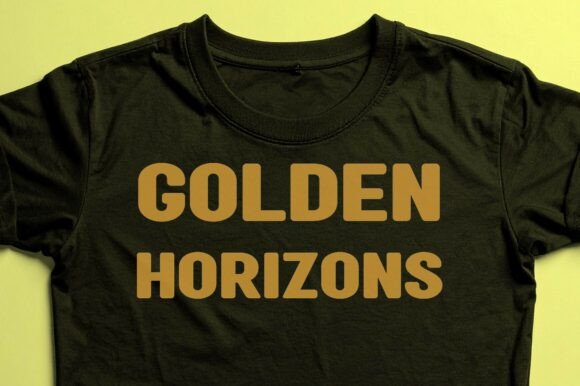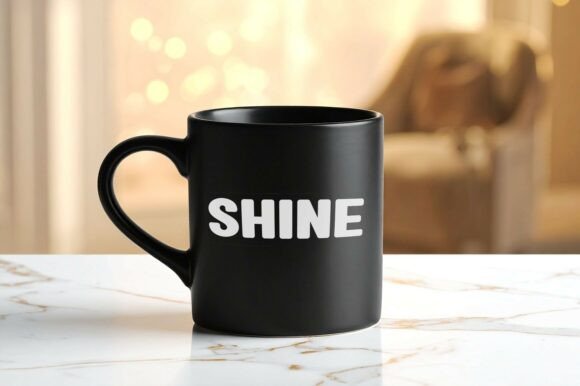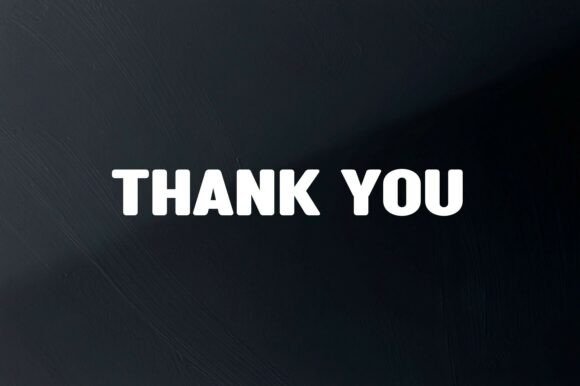
Introducing Akhir Tahun Font: Elevate Your Designs with Timeless Elegance
As the year comes to a close, designers and crafters are on the lookout for fresh and inspiring typography to elevate their creations. Look no further than the Akhir Tahun font, a sublime fusion of timeless elegance and contemporary flair. This exquisite font is the perfect match for grand celebrations, premium branding, and any design project that demands refinement and sophistication.
The Epitome of Refinement
Akhir Tahun embodies the perfect blend of classic poise and modern style, making it an ideal choice for designers seeking to create stunning visual experiences. Its well-proportioned letterforms are seamlessly aligned with sleek lines, exuding an aura of exclusivity and prestige. Whether you’re designing event invitations, festive greetings, luxury product presentations, or editorial content, Akhir Tahun is the go-to font for adding a touch of elegance and timeless allure.
Adaptability at Its Finest
One of the standout features of Akhir Tahun is its impressive adaptability. This font shines in a variety of applications, from soul-stirring event invites to cheerful festive greetings, luxury product presentations, and editorial design. Its exceptional readability ensures that your message is conveyed with clarity and precision, while its striking, meticulously crafted finishing touch adds a level of sophistication that’s hard to match.
Unparalleled Elegance and Distinctiveness
With Akhir Tahun, you can expect your words to echo with an unparalleled elegance and distinctiveness. This font is designed to make your designs stand out from the crowd, conveying a sense of refinement and luxury that’s perfect for high-end branding and celebrations. Whether you’re a designer, craftsperson, or simply someone who appreciates beautiful typography, Akhir Tahun is sure to impress.
Akhir Tahun is a versatile font that’s perfect for a wide range of design applications. Here are just a few examples of how you can use this stunning font:
- Event Invitations: Create stunning event invitations that exude elegance and sophistication.
- Festive Greetings: Design cheerful festive greetings that showcase your creativity and attention to detail.
- Luxury Product Presentations: Elevate your luxury product presentations with a font that conveys refinement and exclusivity.
- Editorial Design: Use Akhir Tahun to add a touch of elegance and sophistication to your editorial designs.
Why Choose Akhir Tahun?
So why choose Akhir Tahun over other fonts? Here are just a few reasons why this font stands out:
- Timeless Elegance: Akhir Tahun boasts a timeless elegance that will never go out of style.
- Exceptional Readability: This font ensures exceptional readability, making it perfect for a wide range of design applications.
- Adaptability: Akhir Tahun shines in a variety of applications, from event invitations to luxury product presentations.
- Distinctiveness: This font is designed to make your designs stand out from the crowd, conveying a sense of refinement and luxury.
In conclusion, Akhir Tahun is a sublime fusion of timeless elegance and contemporary flair that’s perfect for designers and crafters seeking to elevate their designs. With its well-proportioned letterforms, sleek lines, and exceptional readability, this font is sure to make your designs shine. Whether you’re designing event invitations, festive greetings, luxury product presentations, or editorial content, Akhir Tahun is the perfect choice for adding a touch of elegance and sophistication.